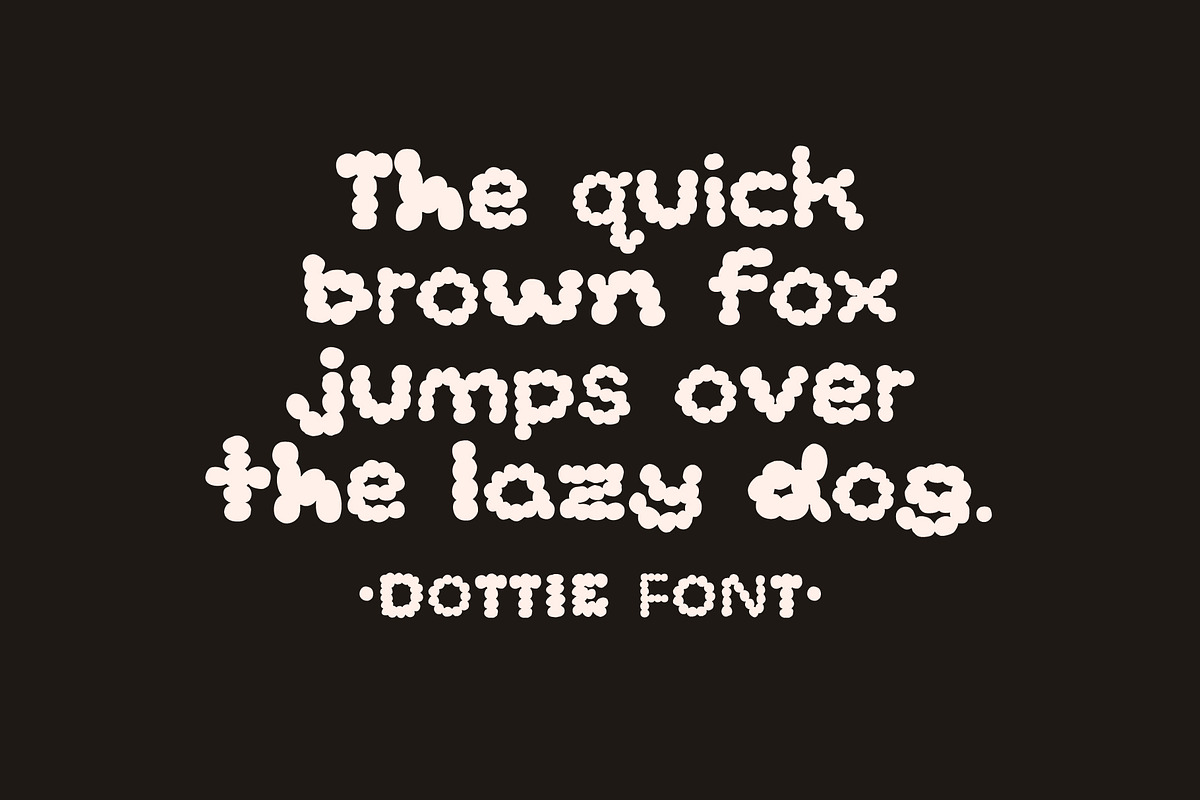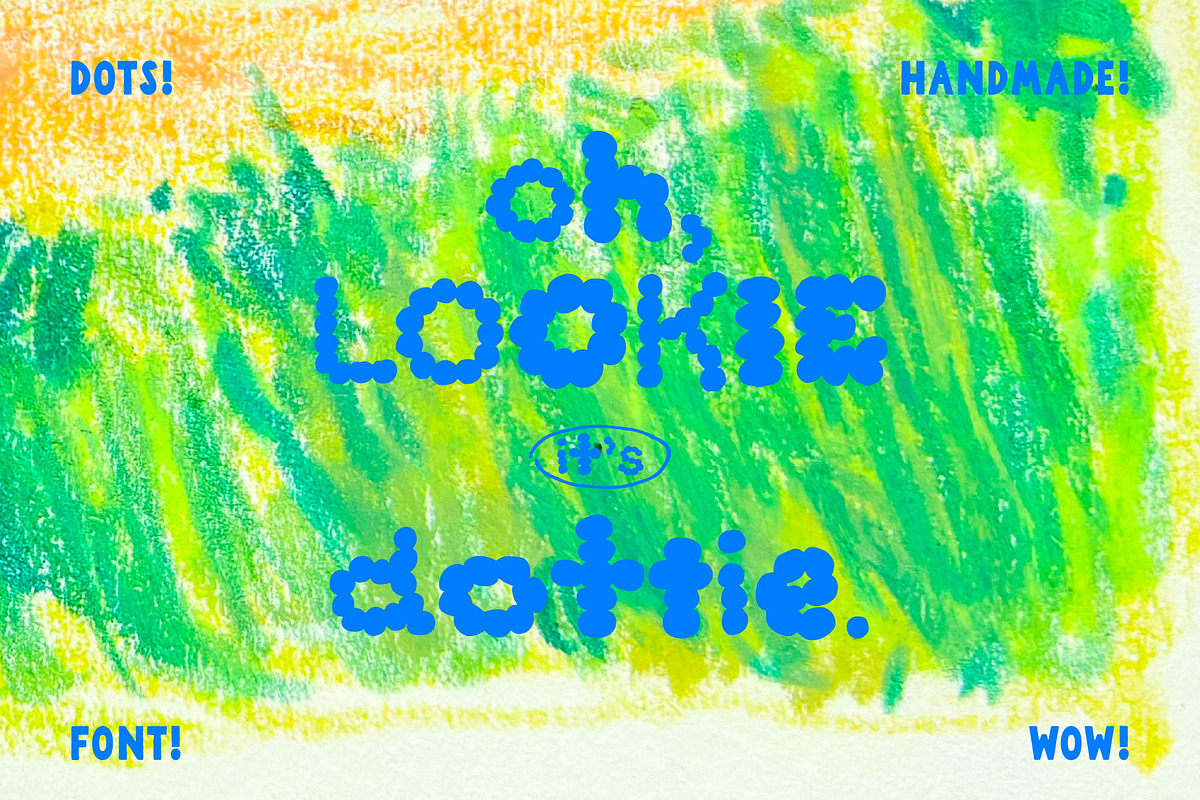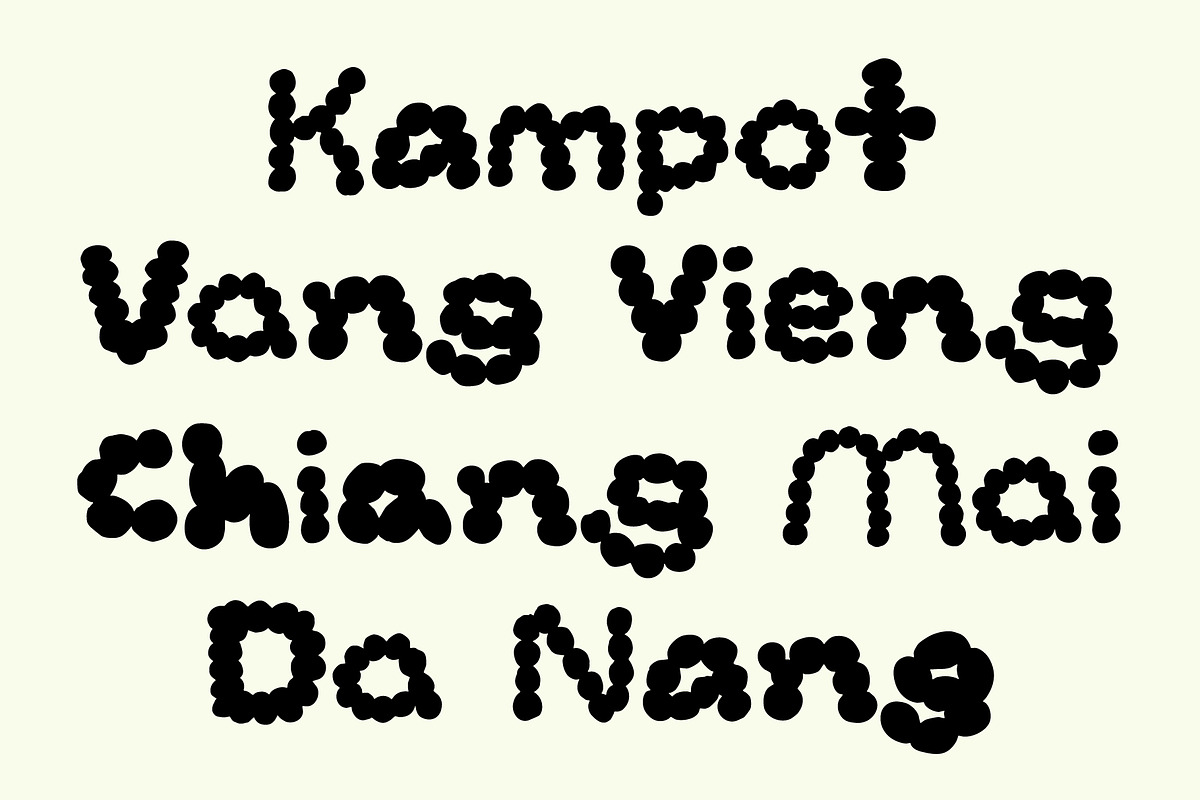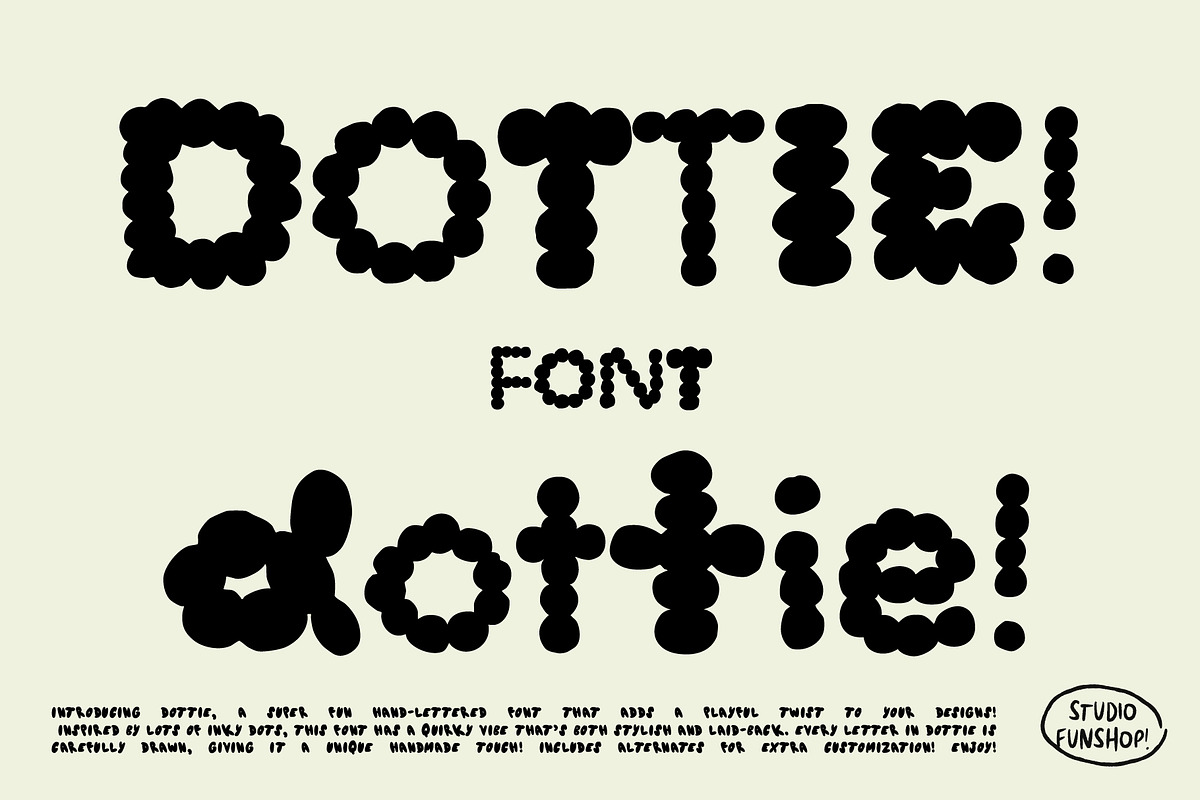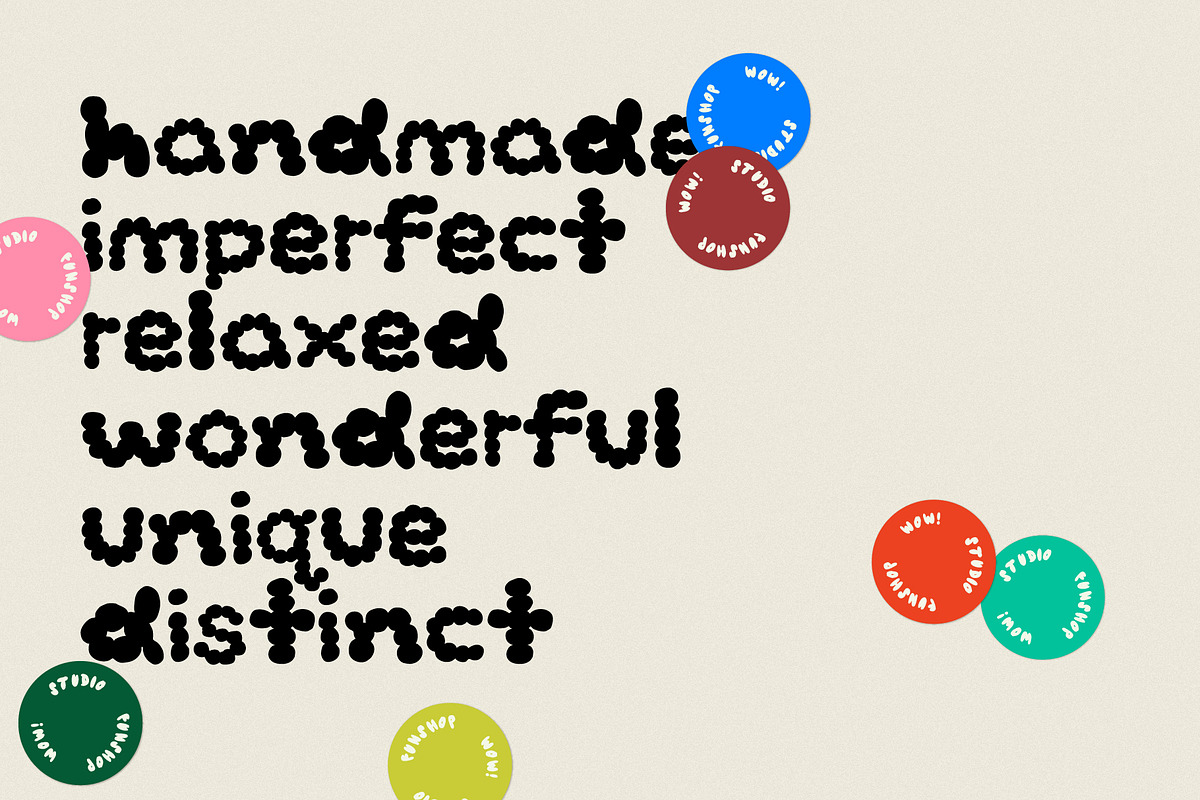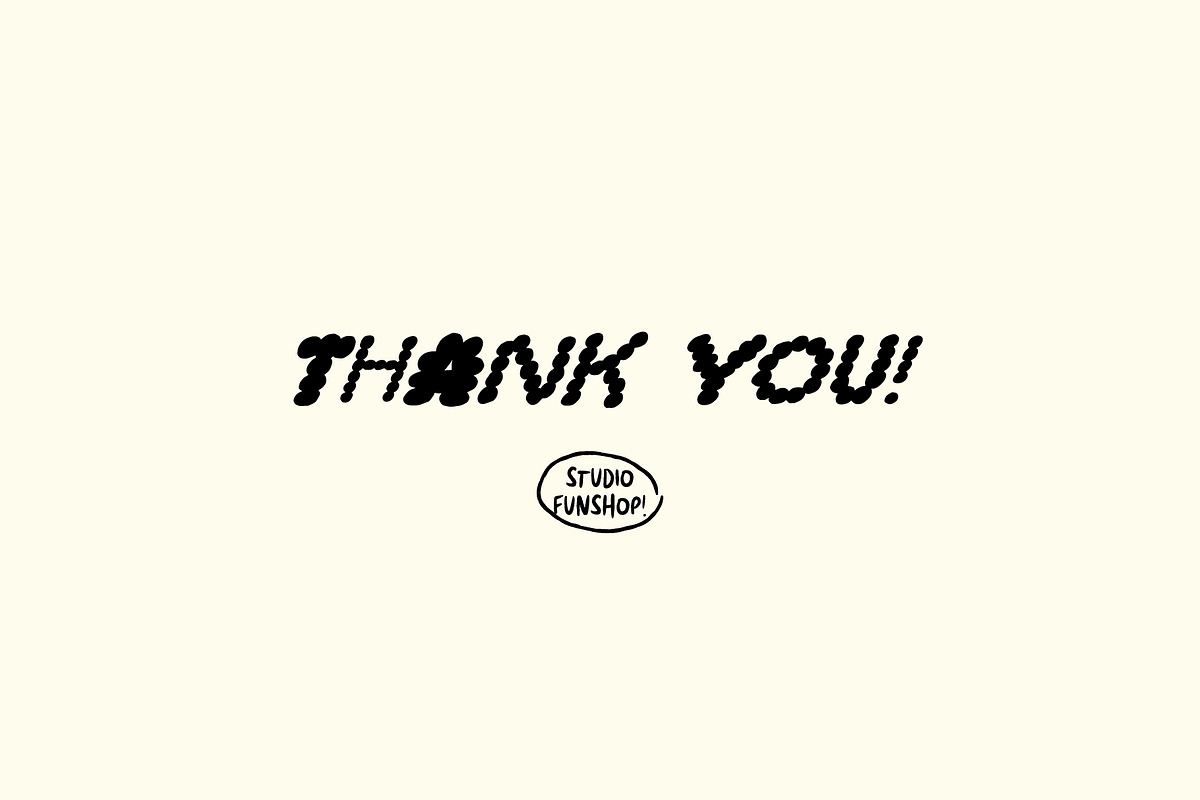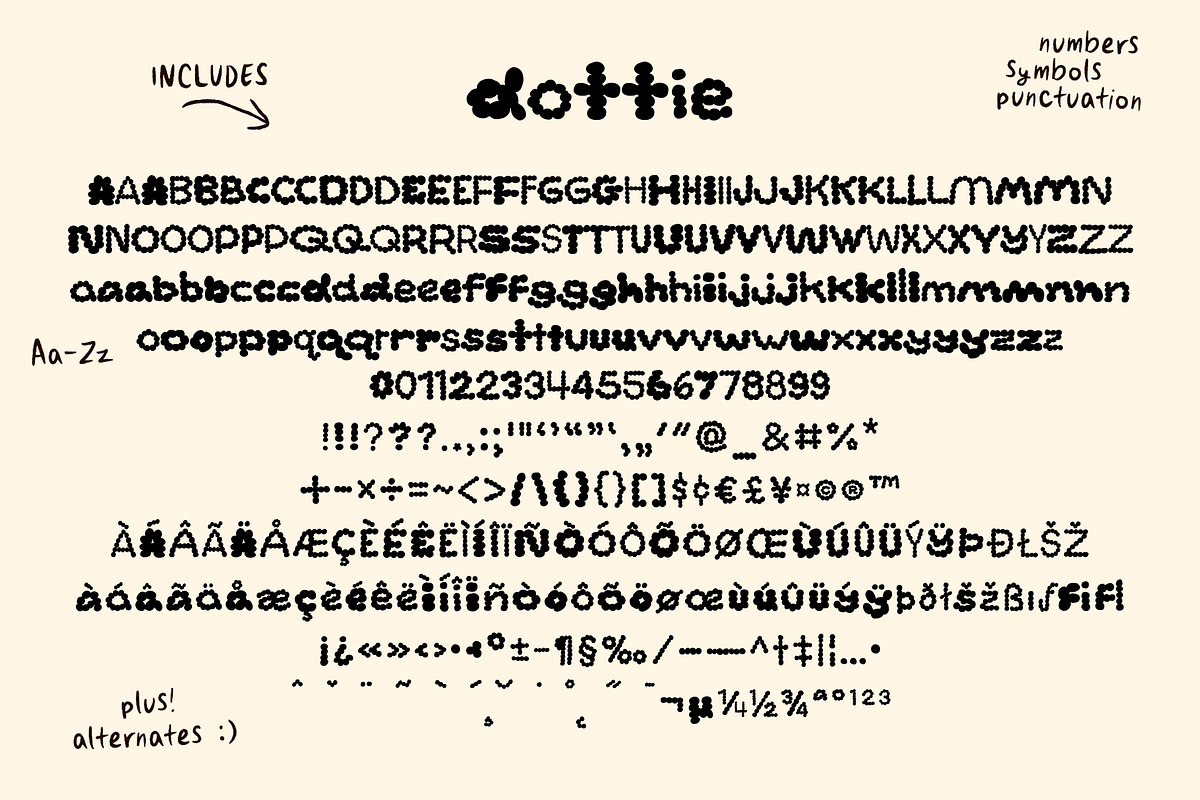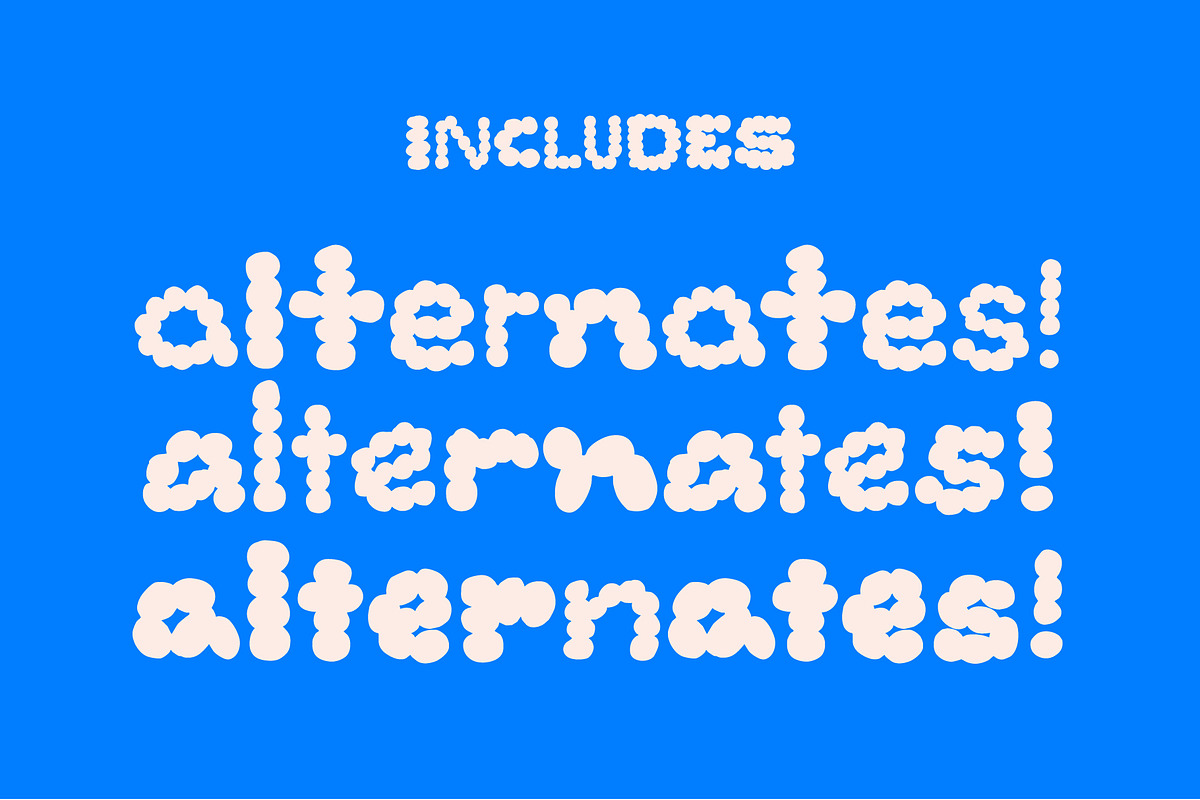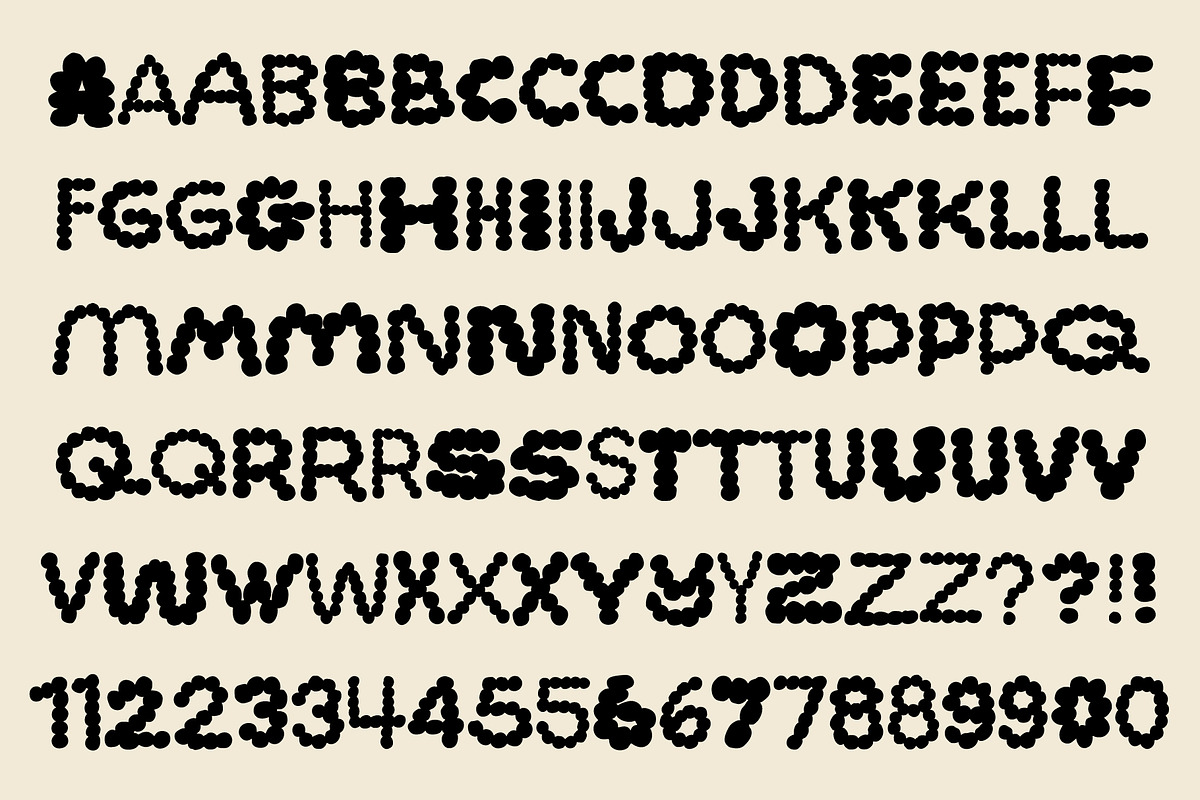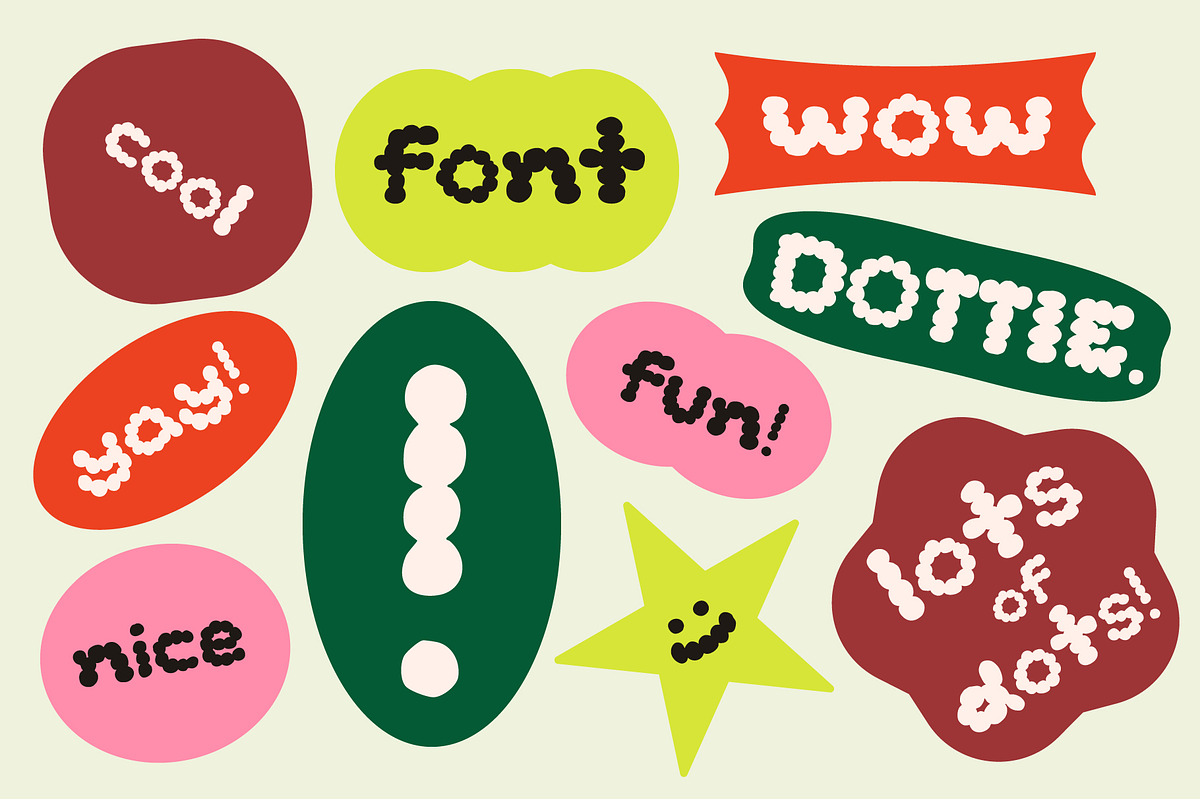
Dottie - A hand-lettered font
Dottie Font Introducing Dottie, a super fun hand-lettered font that adds a playful twist to your designs! Inspired by lots of inky dots, this font has a quirky vibe that’s both stylish and laid-back.
Every letter in Dottie is carefully drawn, giving it a unique imperfect handmade touch! Includes alternates for extra customization! Enjoy!
What's in the font? Uppercase and Lowercase Aa-Zz! Numbers! Symbols! Punctuation! Alternates! Some Multi-lingual Glyphs (see slides!)